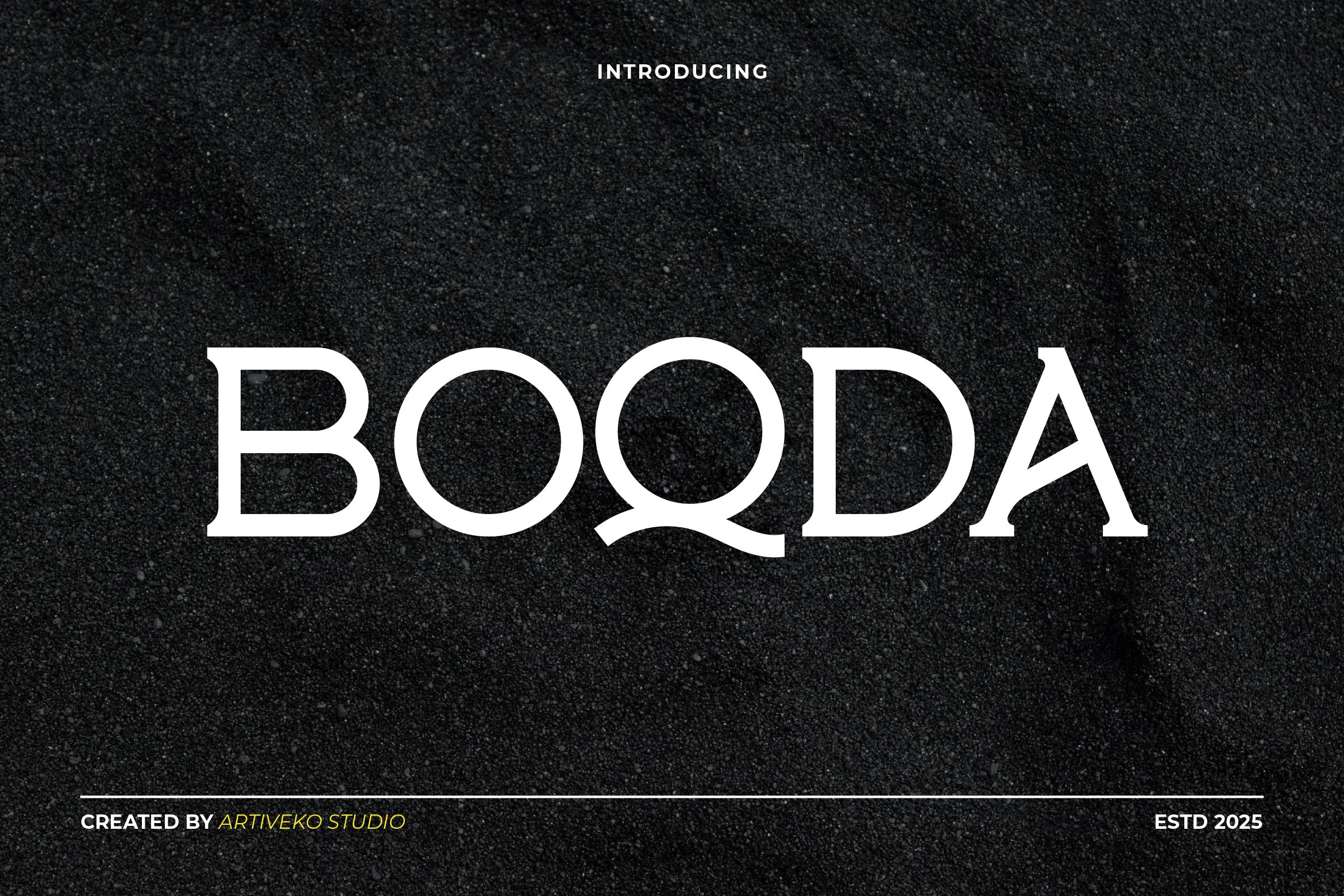
- Boqda Clean Modern Serif Font
Boqda is a clean and contemporary sans serif font designed to bring simplicity and elegance to your typography. With its balanced proportions, geometric structure, and smooth letterforms, Boqda is perfect for branding, editorial layouts, website design, packaging, presentations, and social media graphics that require a sleek and professional touch.
Its minimalist construction ensures excellent readability while adding a timeless, modern appeal. Ideal for fashion, lifestyle, tech, and creative projects, Boqda adapts effortlessly to both bold headlines and refined body text applications.
The font includes uppercase and lowercase letters, numerals, punctuation, multilingual support, and stylistic alternates for enhanced creative flexibility.
Bring clarity and sophistication to your designs with Boqda — the minimalist sans serif that defines modern simplicity and elegance.